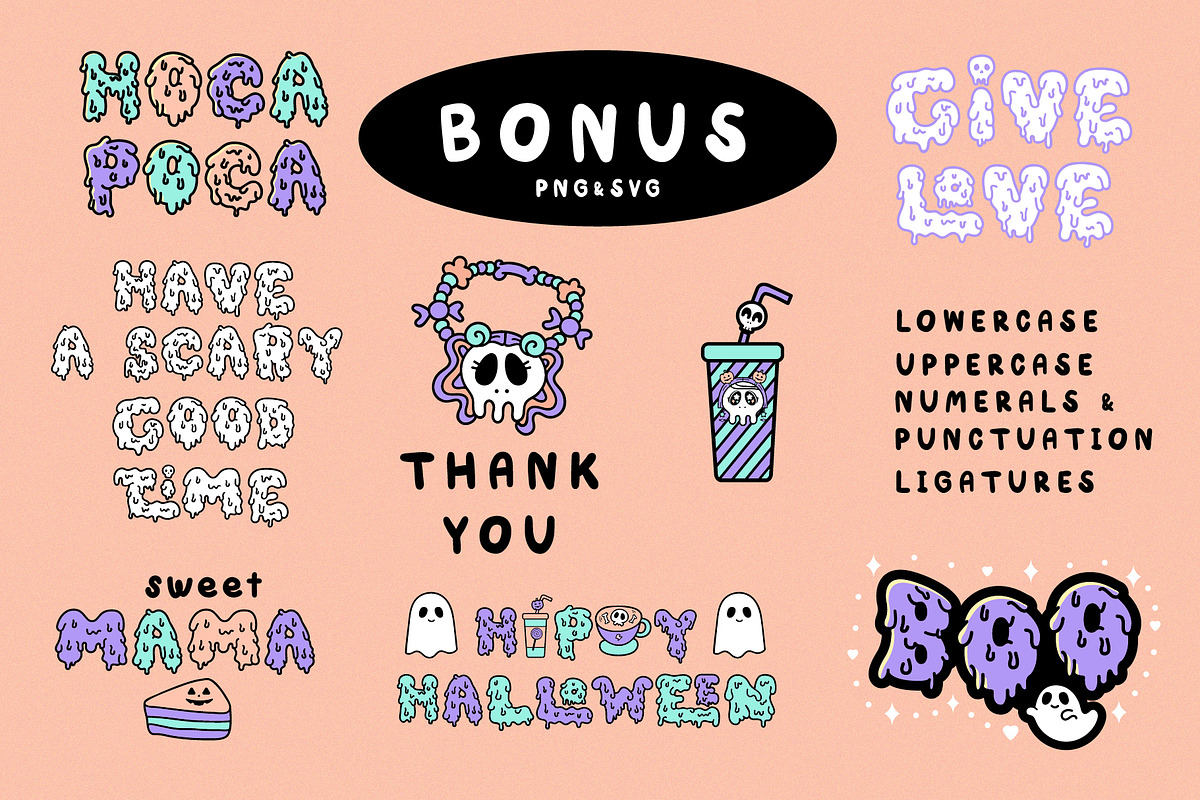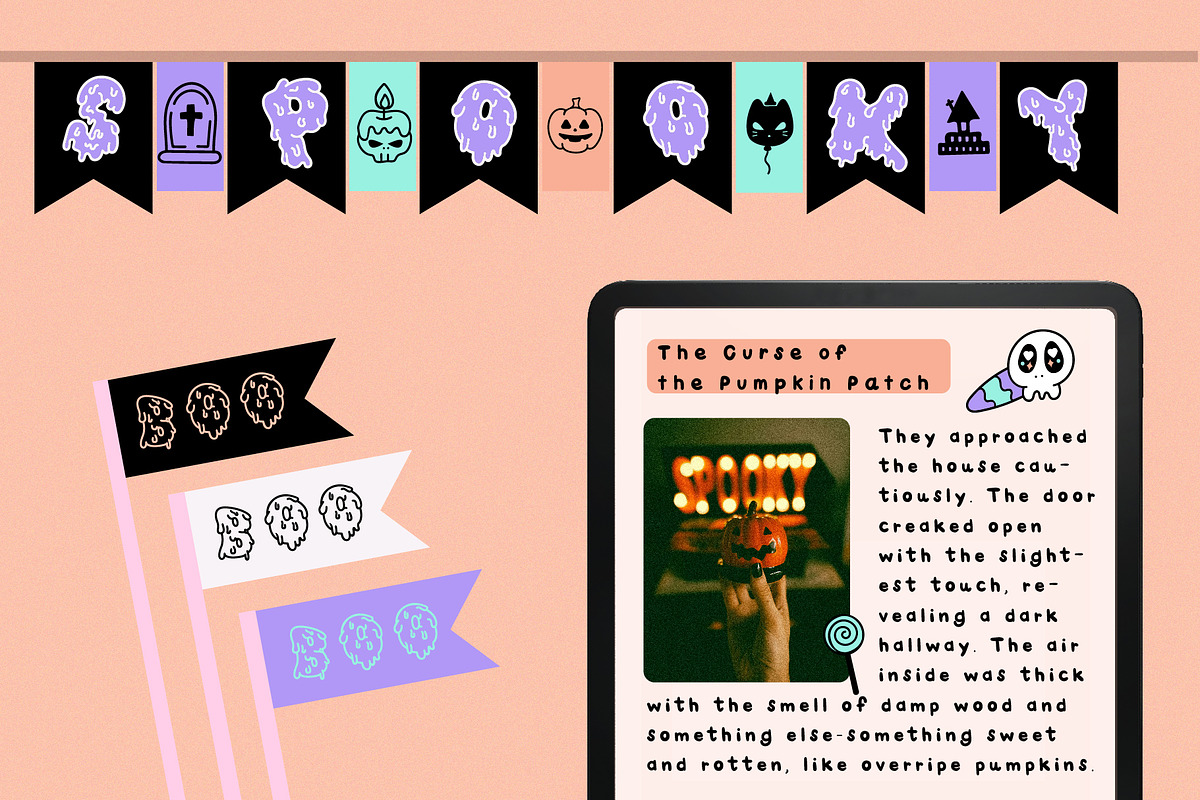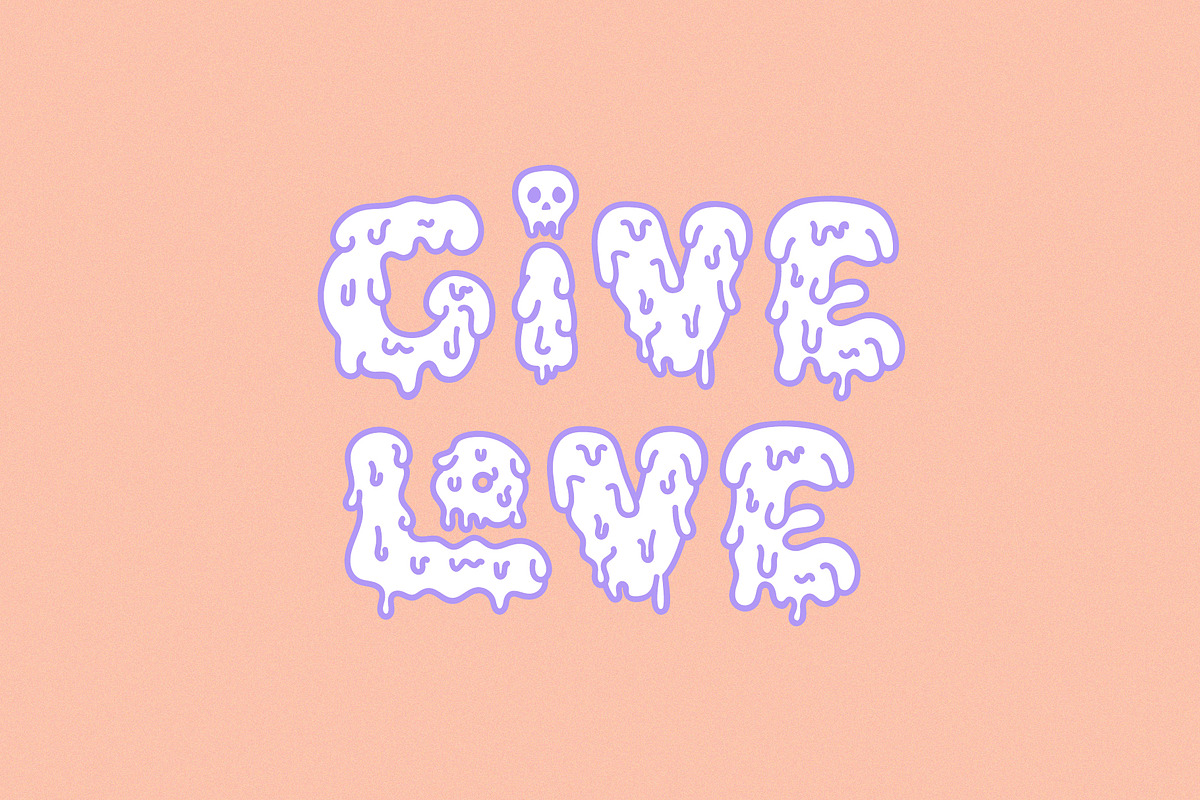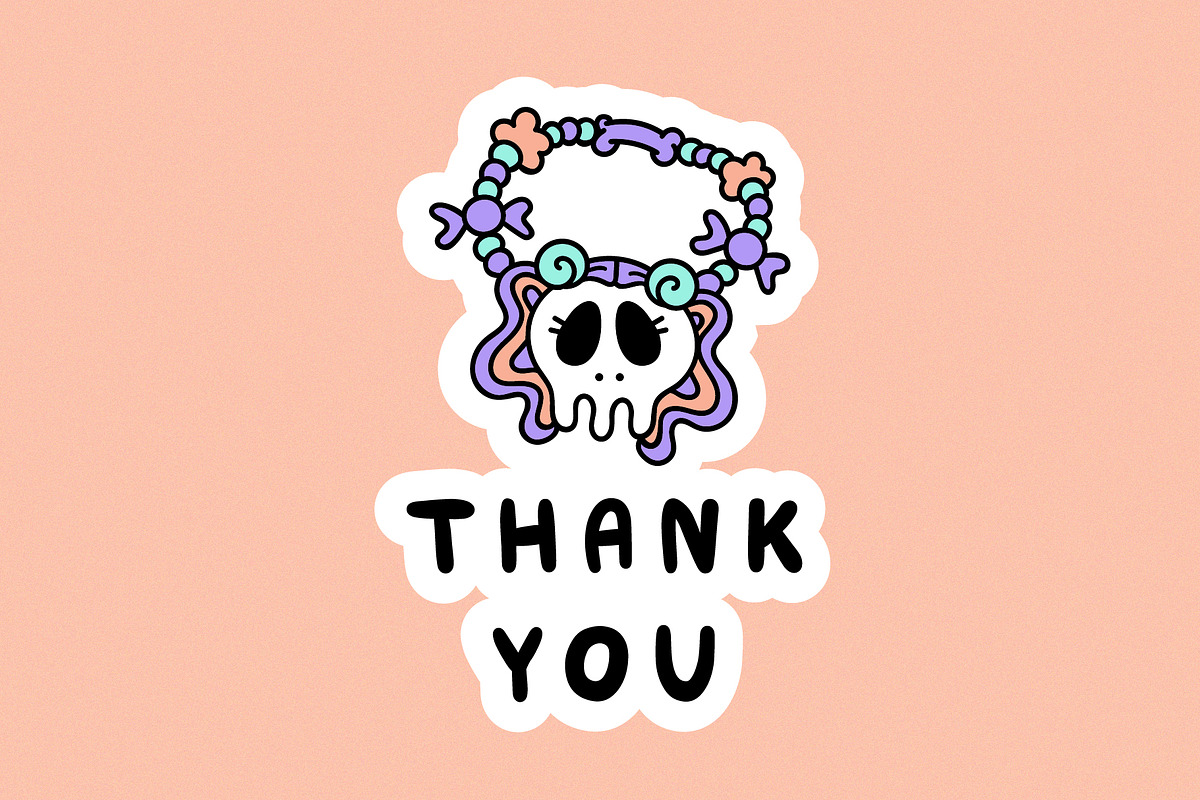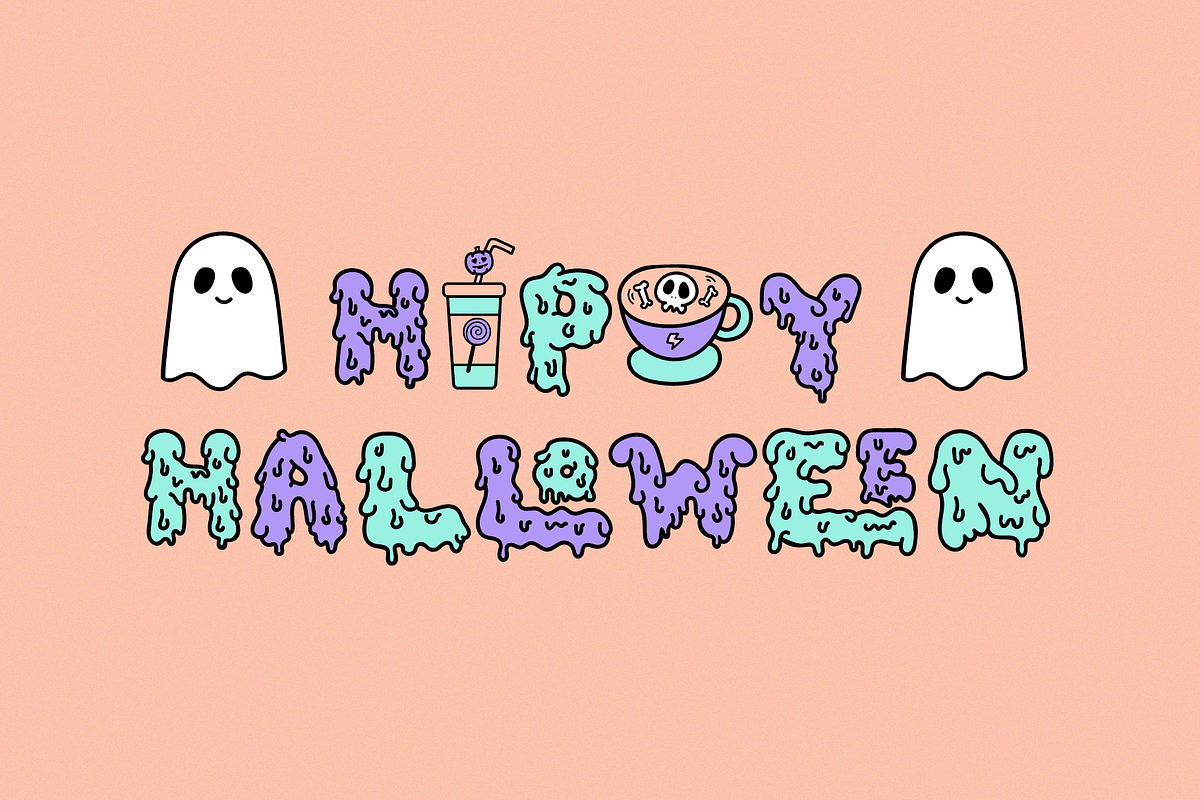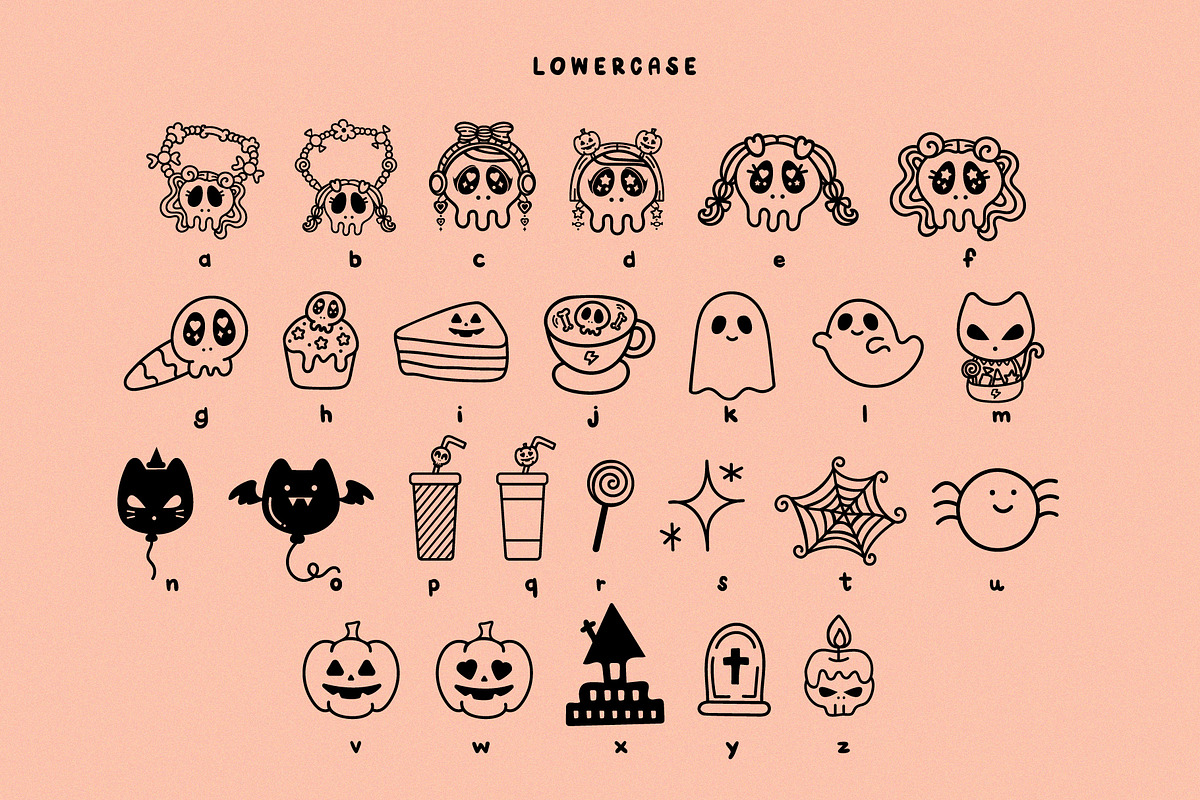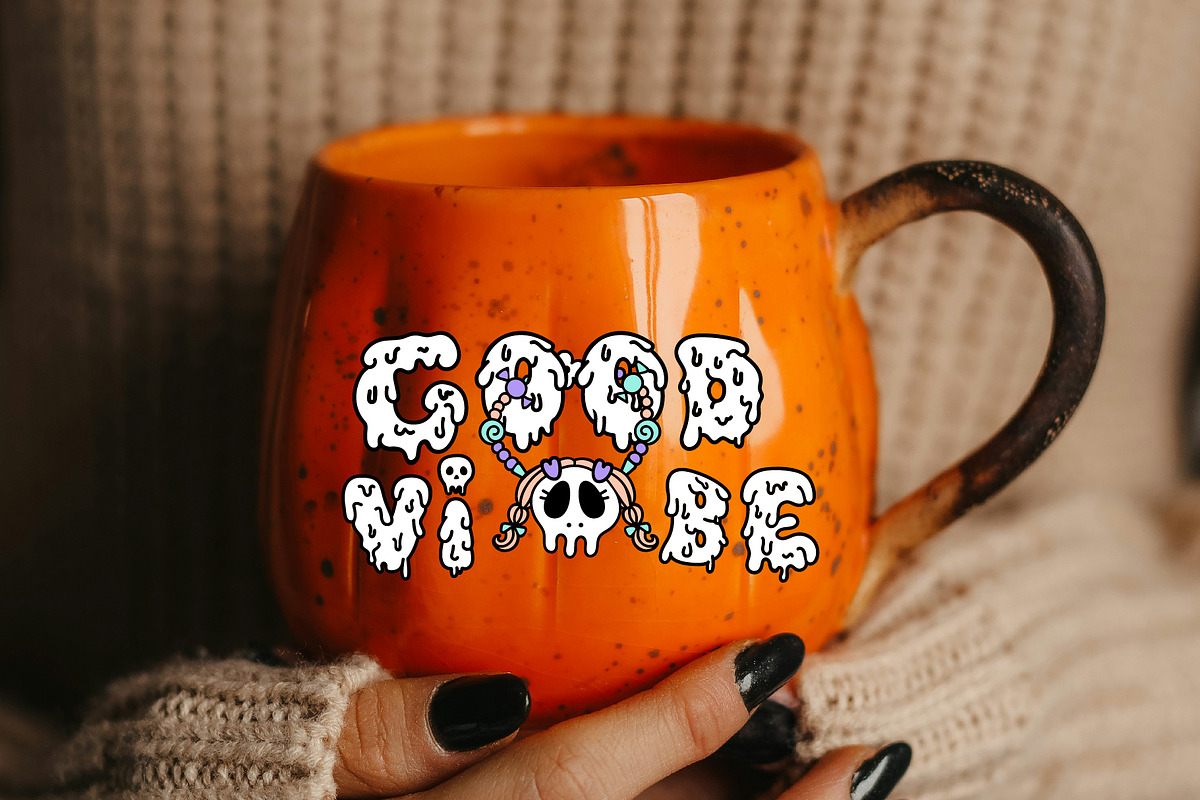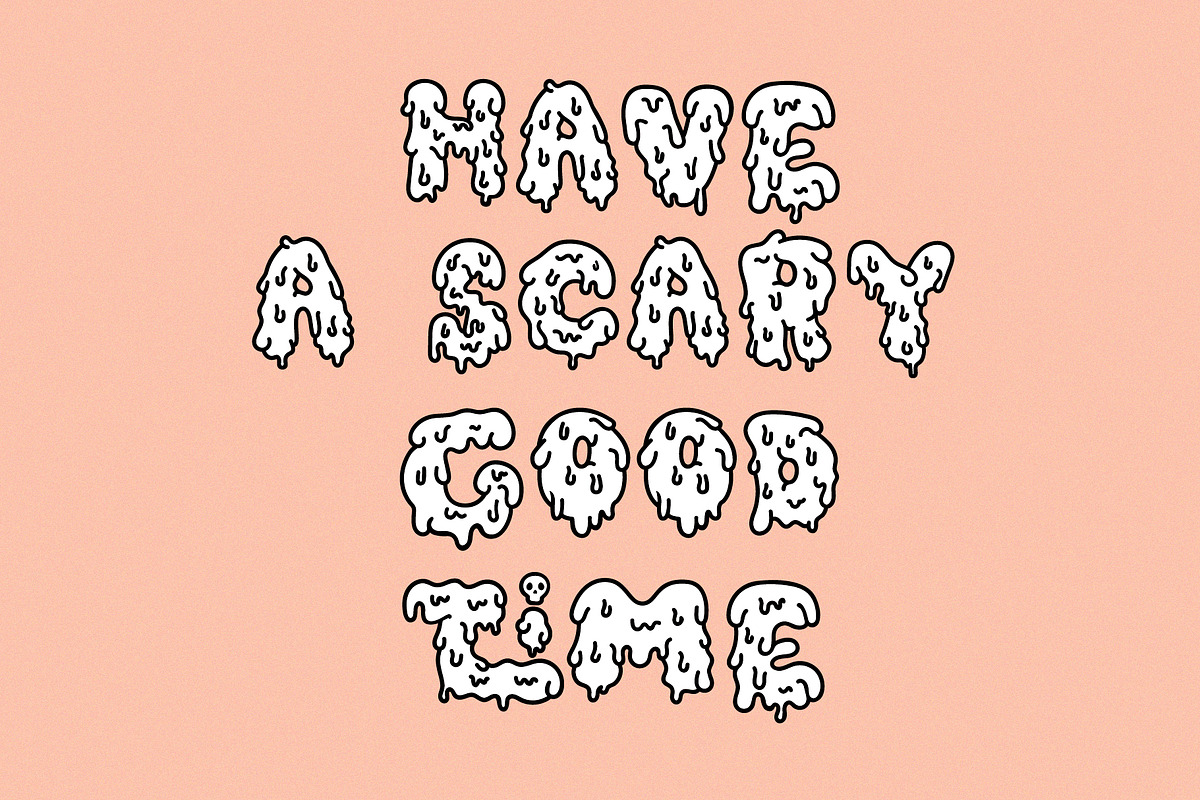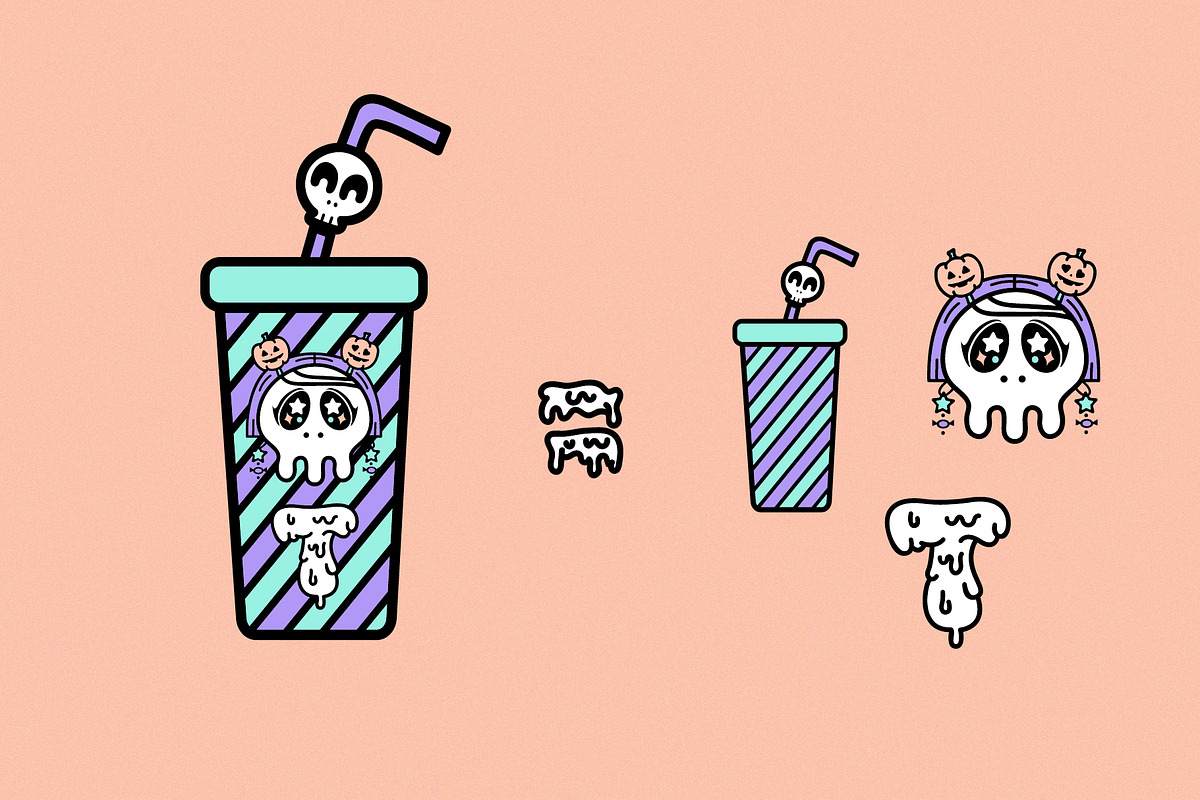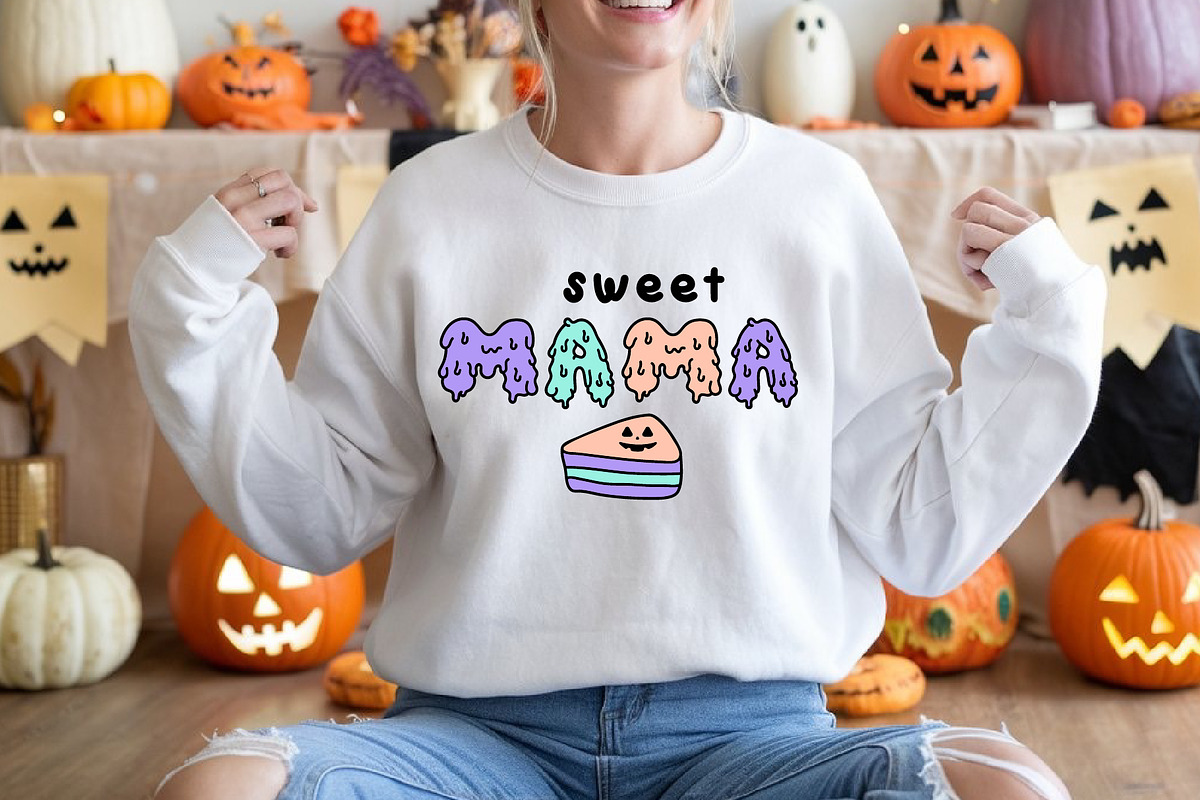
Spooky Vibes Handwritten Font
Spooky Vibes is a hand-drawn font that adds a fun and playful twist to spooky designs. Its drippy, flowing letters bring a unique, whimsical touch, making it perfect for lighthearted Halloween projects or any occasion that calls for a blend of cute and eerie. The font's handcrafted charm and organic shapes are ideal for adding personality to creative designs with a playful edge.